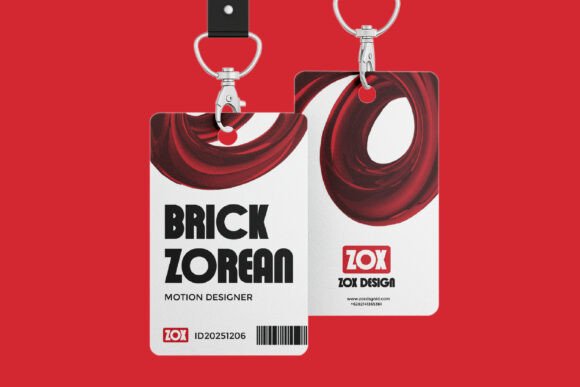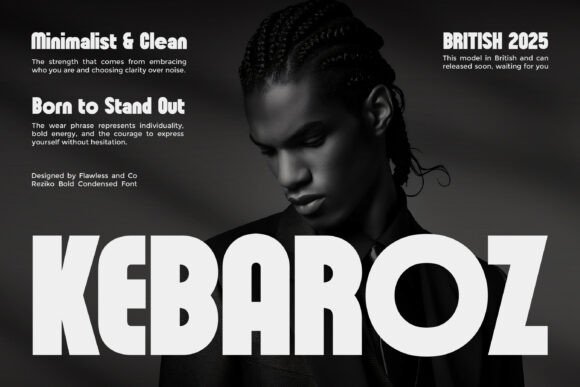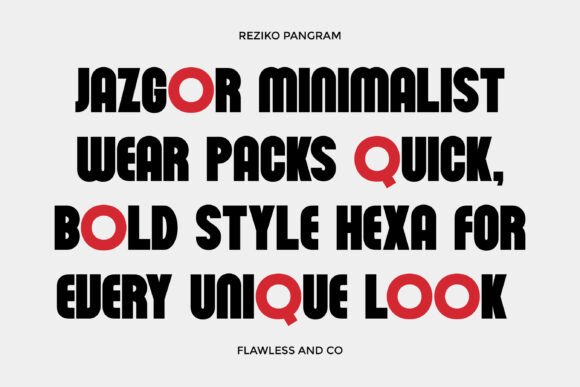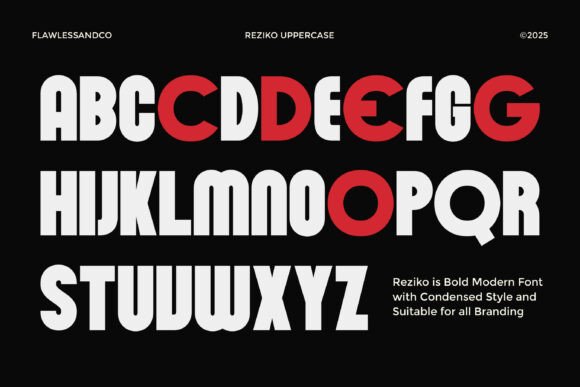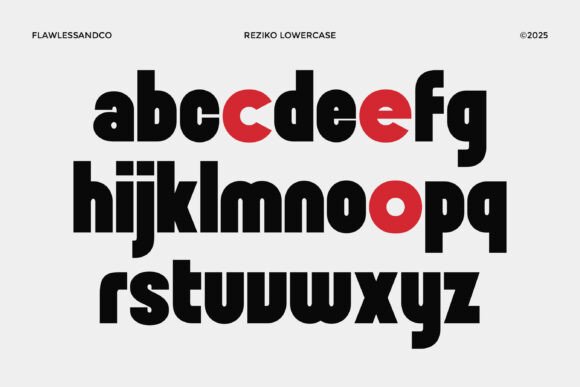
Introduction to Reziko Font
Have you ever been working on a creative project, pouring your heart and soul into it, only to be held back by a font that just doesn’t cut it? A font that’s dull, uninspired, and fails to deliver the impact you need to make your project shine. Well, we’ve got the solution for you – introduce the Reziko Font, a game-changing design resource that’s about to revolutionize the way you create.
As a designer, you know how important it is to have a high-quality font that not only looks great but also delivers a clear and authoritative message. That’s exactly what the Reziko Font offers – a clean, modern, and condensed design that’s perfect for brands that want to stand out with clarity and authority.
Key Features of Reziko Font
- High-quality, vector-based font design for a creative project, ideal for use in graphic design, digital art, and web development.
- Unique characteristics: bold, geometric shapes and futuristic aesthetic, making it perfect for modern and minimalist design projects.
- Perfect for use in logos, typography, and branding materials, adding a touch of sophistication and elegance to any design.
Honest Review: Reziko Font
- ✨ High-quality glyphs and characters that are perfect for creating visually appealing typography.
- ✨ The transparent background makes it easy to layer and customize the font for any design project.
- ✨ The font is highly versatile and can be used for a wide range of creative projects, from logos to brochures.
While the Reziko Font is an excellent addition to any designer’s toolkit, there are a few limitations to be aware of:
- ⚠️ The font may not be suitable for use in very small sizes, as the characters can become difficult to read.
- ⚠️ Some users may find the font’s style to be a bit too bold or overpowering, depending on the design context.
Overall, I’m thoroughly impressed with the Reziko Font. Its high quality and versatility make it an excellent choice for any designer looking to elevate their creative project. With a bit of caution regarding its limitations, I would highly recommend this font to anyone looking for a reliable design resource.
Reziko Font is commonly used for creating logos, icons, and graphics for various creative projects. It is also used for designing presentations, reports, and other documents that require a high-quality and professional font.